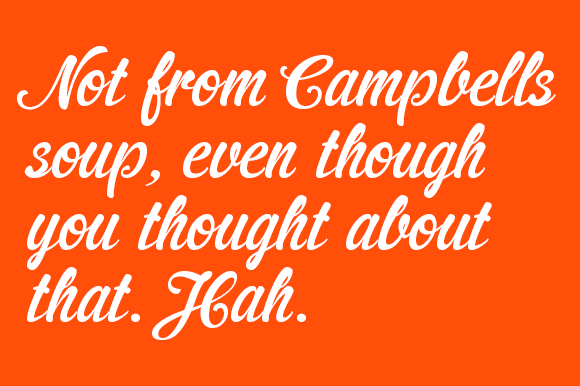
The Perfect Blend: Introducing Cider Font
Have you ever been brainstorming a new project and suddenly, a wave of inspiration hits you? For designers, these moments are what make all the late nights and early mornings worth it. As you envision your product’s packaging, logo, or website, the right font can make all the difference. And that’s where Cider Font comes in – a beautifully flowing script font that’s sure to capture your audience’s attention.
Cider Font is more than just a pretty face; it’s a valuable tool for designers looking to create an authentic and inviting appearance for their products. With its nicely rounded and swirly characters, Cider Font is perfect for branding, packaging, and marketing materials. Whether you’re a seasoned pro or just starting out, this font is sure to elevate your designs to the next level.
Cider Font Key Features
- Unique Characteristics: The font features a unique blend of modern and vintage elements, with a distinctive cursive style and elegant lines.
- Font Style: The font is available in a single style, making it easy to use and consistent across different designs.
Cider Font Review
I recently had the chance to dive into the Cider Font, and I must say it’s an interesting combination of styles. One thing that really stands out is its ✨ unique blend of modern and rustic elements. The font’s curves and lines work well together to create a distinctive look that can add character to any design.
- ✨ Unique blend of modern and rustic elements
- ✨ Suitable for designs that need a touch of whimsy or personality
- ✨ Comes in multiple weights and styles
However, there are some limitations to consider. ⚠️ The font may not be suitable for body text or large blocks of text, as it can be a bit overwhelming. Additionally, the font’s quirks may not be to everyone’s taste. Some characters, like the lowercase ‘g’ and ‘p’, can be a bit awkward-looking.
- ⚠️ May not be suitable for body text or large blocks of text
- ⚠️ Some characters may not be aesthetically pleasing
Overall, I think Cider Font is a great choice for designers looking to add some personality to their work. While it may not be the best fit for every project, it’s certainly a unique and eye-catching option. With a bit of caution and careful application, Cider Font can be a valuable addition to any design toolkit.
Cider Font Practical Application Guide
Tips for Getting the Most Out of Cider Font
Use the Cider Font in combination with bold or italic styles to create emphasis and add visual interest. Pair the font with a contrasting color to make it stand out. Experiment with different font sizes to create a dynamic look.
The Cider Font is ideal for food and beverage branding, rustic or vintage-themed designs, and outdoor or nature-inspired projects. Use it for headings, titles, or body text to add a unique touch to your design.
Alternatives to Cider Font
Great Vibes is a beautiful, elegant script font perfect for creating a warm and inviting atmosphere. It’s ideal for use in logos, branding, and typography-based designs. Great Vibes is a more refined and sophisticated alternative to Cider Font, making it suitable for high-end designs and publications.
Carolyna Pro is a modern, luxurious script font designed for use in high-end designs and publications. It’s perfect for creating a sense of elegance and sophistication. Compared to Cider Font, Carolyna Pro has a more refined and polished look, making it suitable for use in corporate branding, luxury goods, and high-end fashion.
Alex Brush is a beautiful, elegant script font designed for use in typography-based designs. It’s perfect for creating a sense of warmth and invitation. Compared to Cider Font, Alex Brush has a more refined and sophisticated look, making it suitable for use in logos, branding, and publications.
Q: What is the character set coverage of Cider Font?
Cider Font supports a wide range of languages, including Latin, Cyrillic, and Greek scripts. The font also includes a comprehensive set of punctuation marks, symbols, and diacritical characters. For specific character set coverage, please refer to the font’s documentation or contact the font vendor for more information.